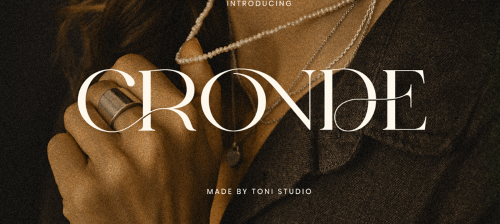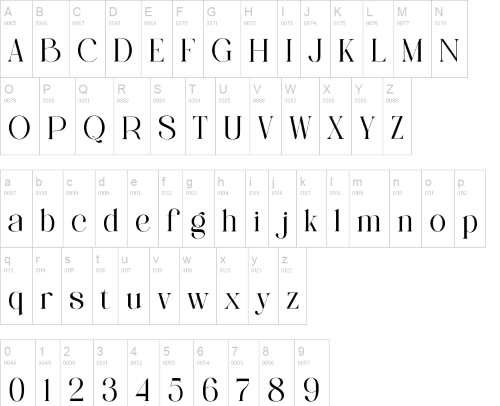
Cronde Font
Cronde Font is a modern serif typeface that captures timeless elegance and refined sophistication. With balanced proportions, subtle contrast, and graceful curves, it blends classic charm with a fresh, contemporary feel. Perfect for luxury branding, editorial layouts, and professional visuals, Cronde delivers a polished and upscale typographic presence.
➤ Font Name: Cronde
➤ Designer: Toni Studio
➤ Style: Basic > Serif